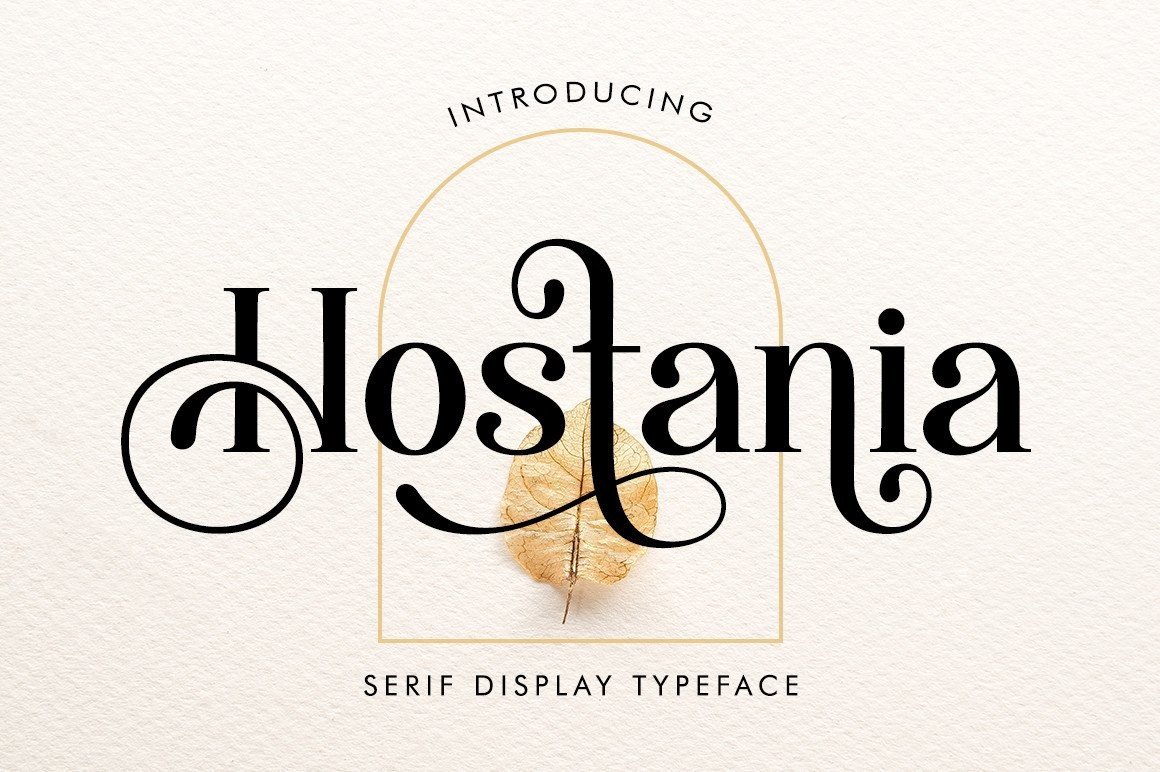
Hostania is a luxurious and elegant serif font perfect for branding, logos, invitations, long texts, and many more. Add it to any of your creative projects, and it will seduce your audience with its impeccable style and form.